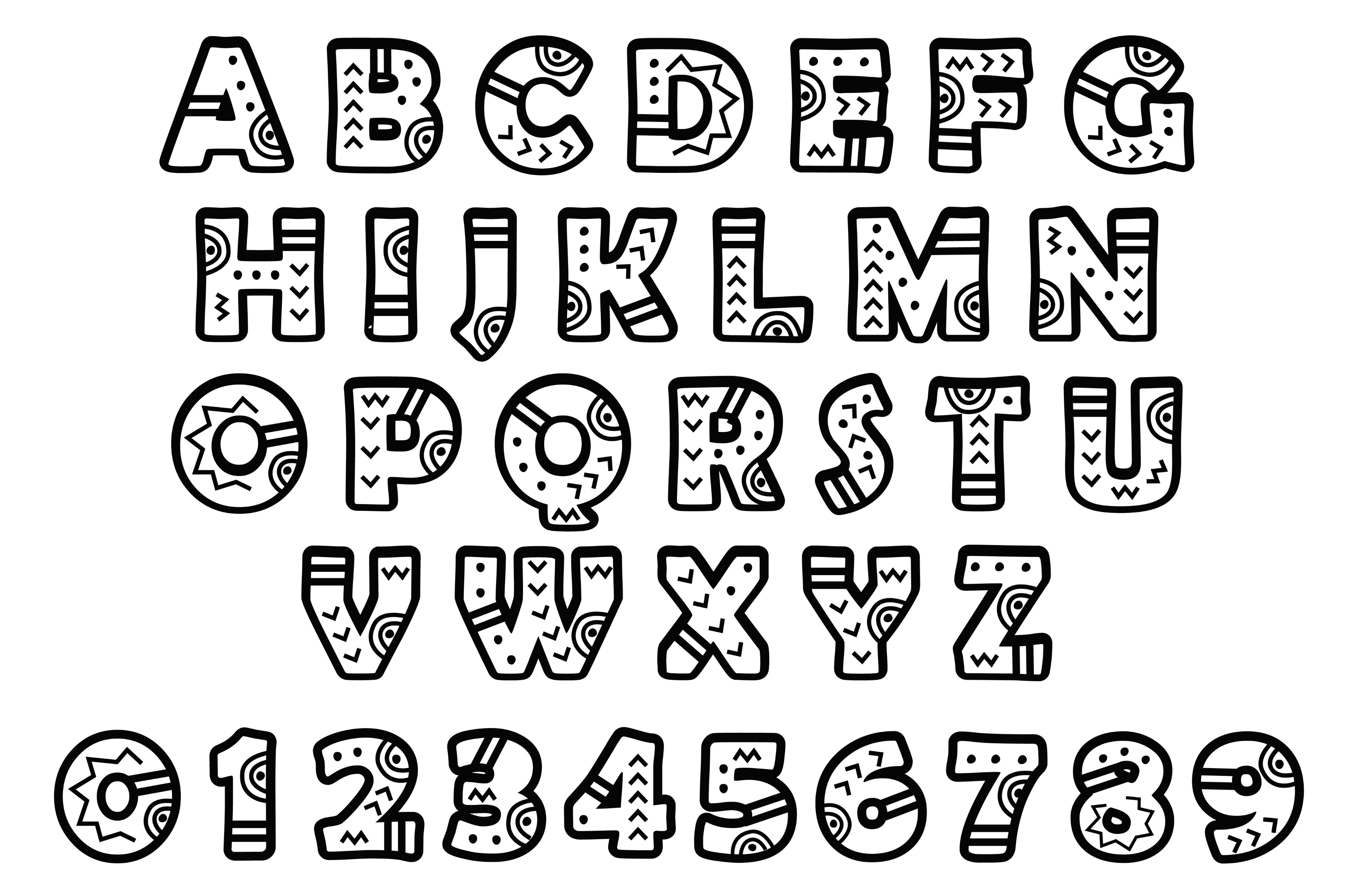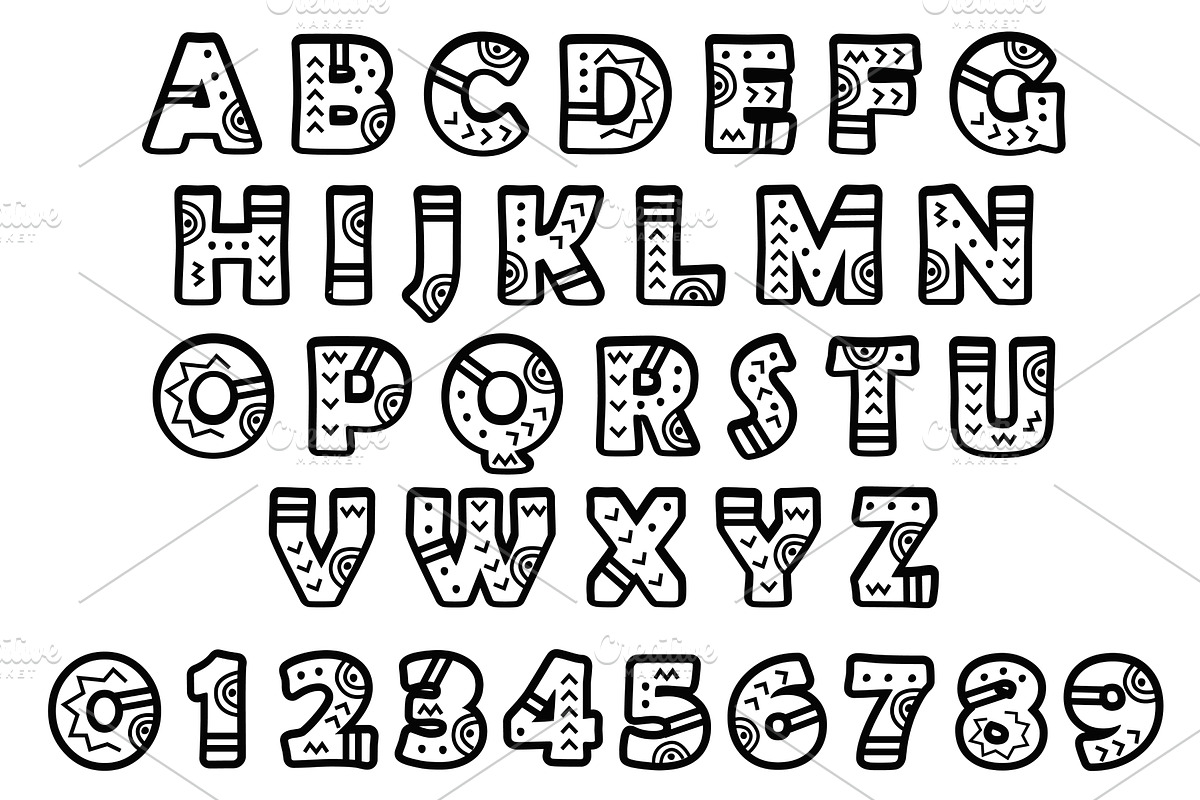
African, Aztec or Maya tribal font
African, Aztec or Maya tribal font. Decorative alphabet with exotic ethnic pattern. Folk lettering design and set of numbers 0-9 for textiles and posters, brochure banners